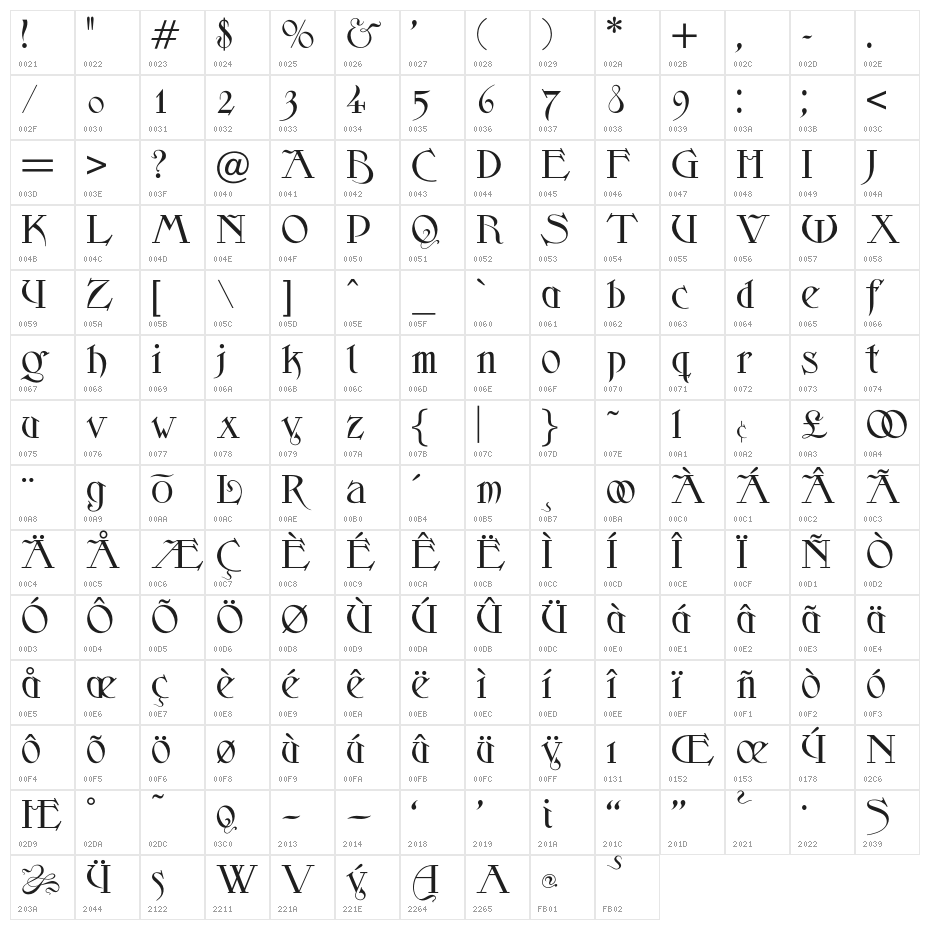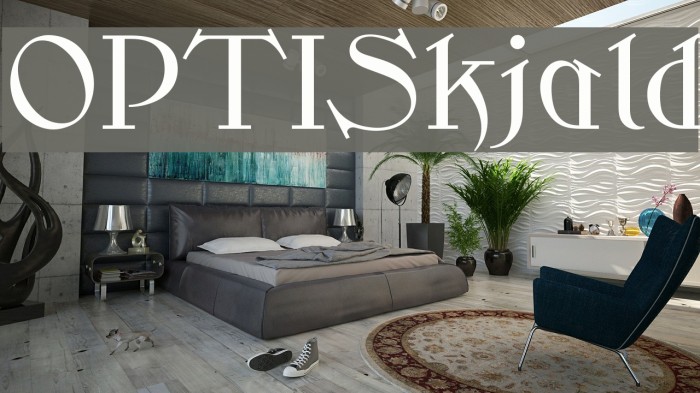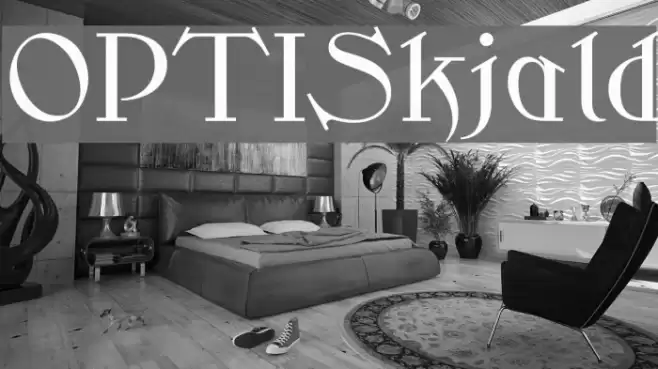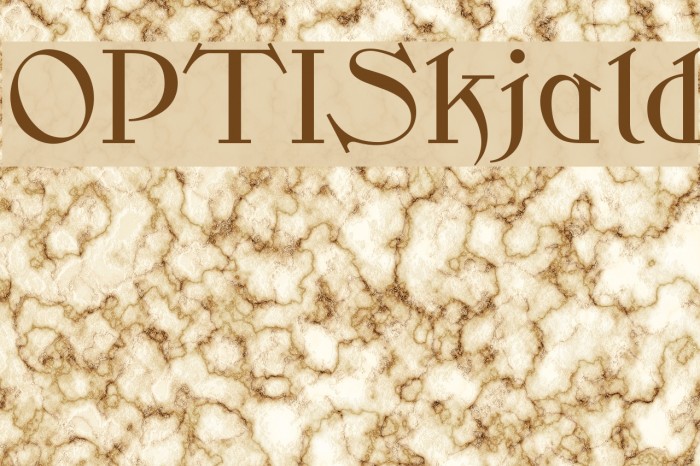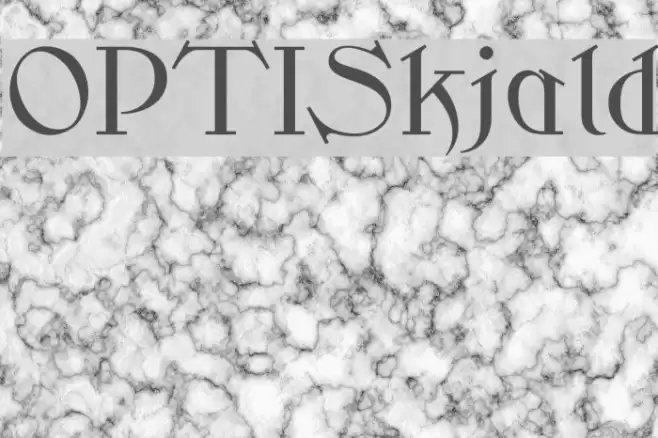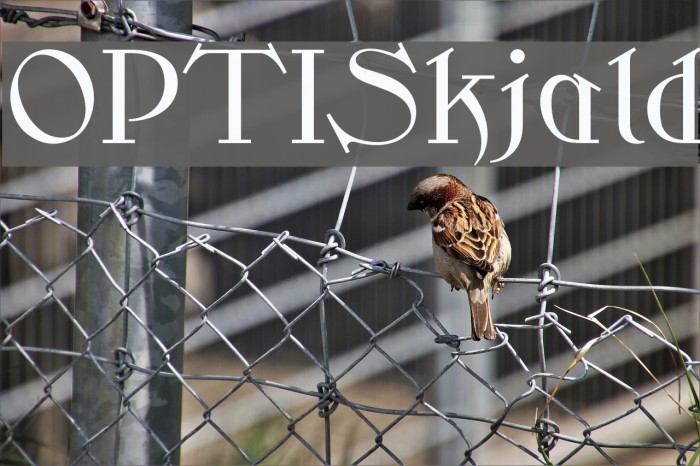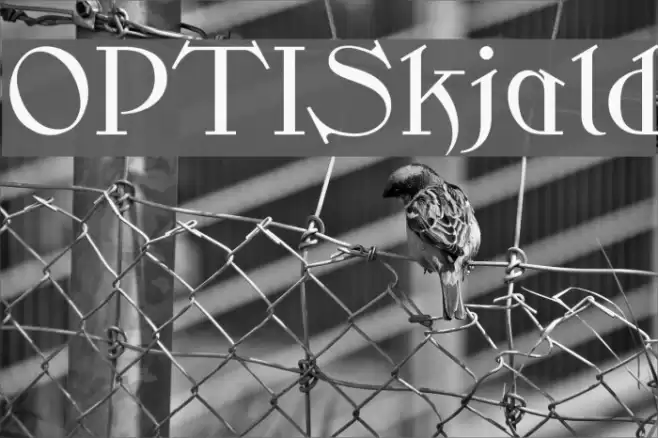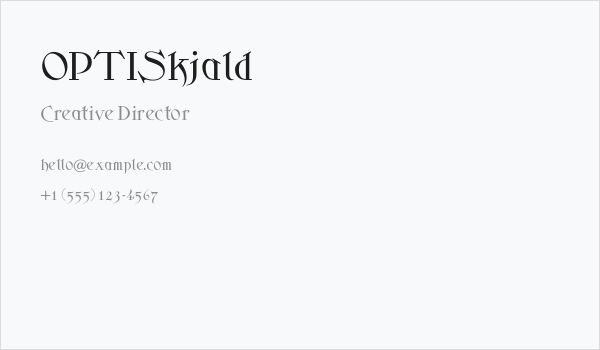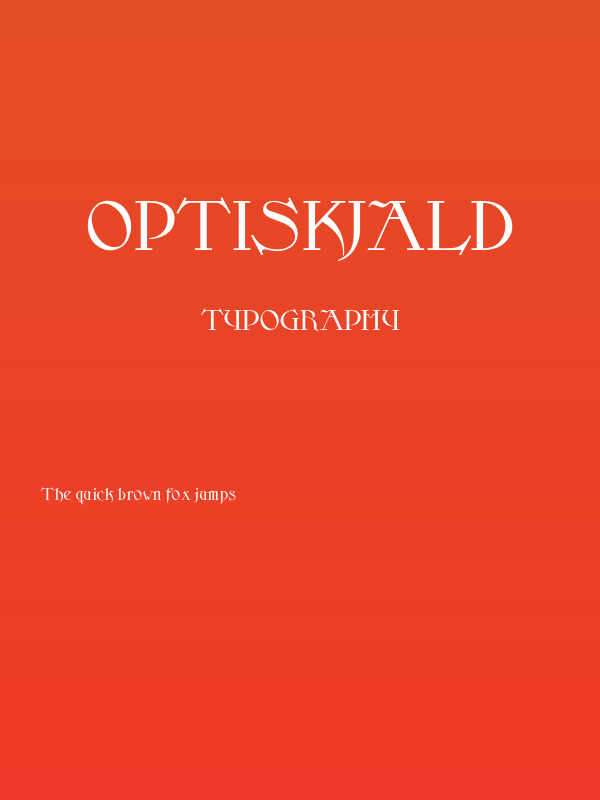
OPTISkjald Font
OPTISkjald Description
This font features a unique blend of traditional and modern elements, characterized by its sharp, angular serifs and distinct, flowing curves. The uppercase letters exhibit a striking presence with their bold, pointed serifs and elongated strokes, creating a sense of elegance and authority. The lowercase letters maintain a consistent style, with smooth transitions and a slightly more subdued appearance. The numerals are crafted with a similar attention to detail, offering a harmonious balance between readability and artistic flair. Special characters are thoughtfully designed, complementing the overall aesthetic with their intricate details and balanced proportions. This font's distinctive style makes it suitable for a variety of creative applications.